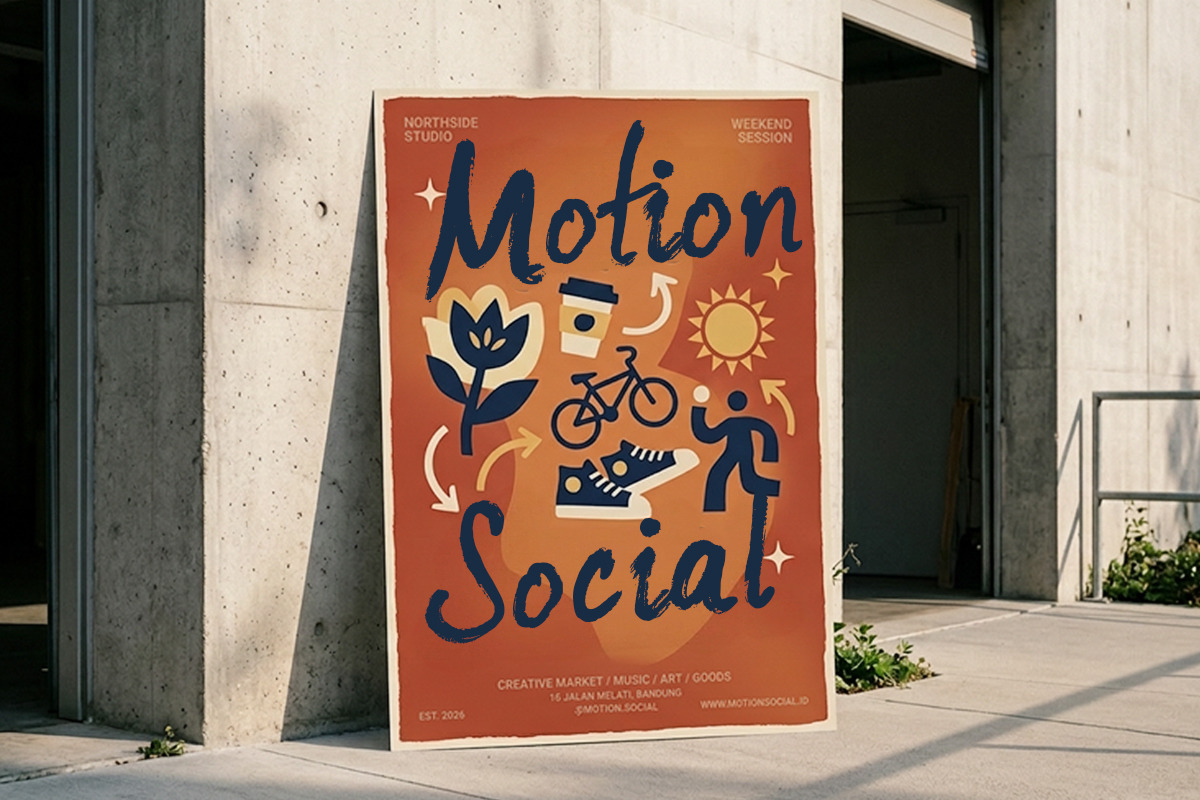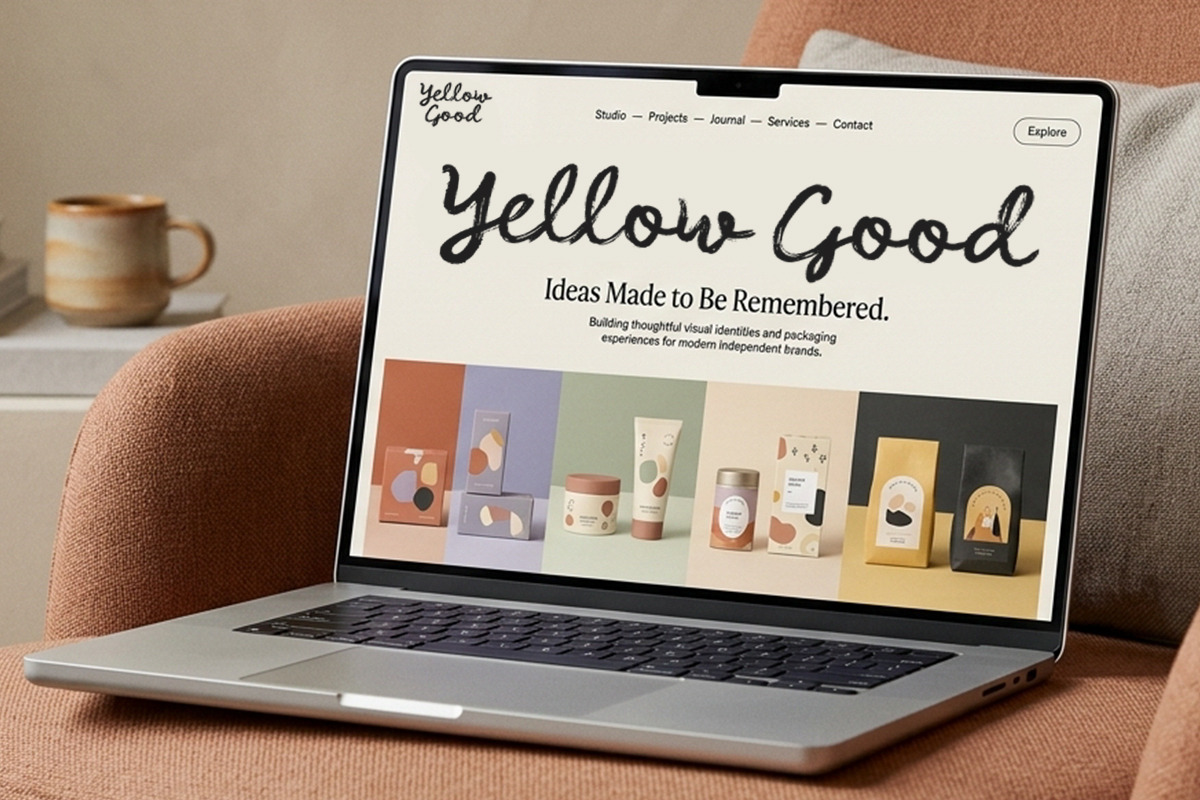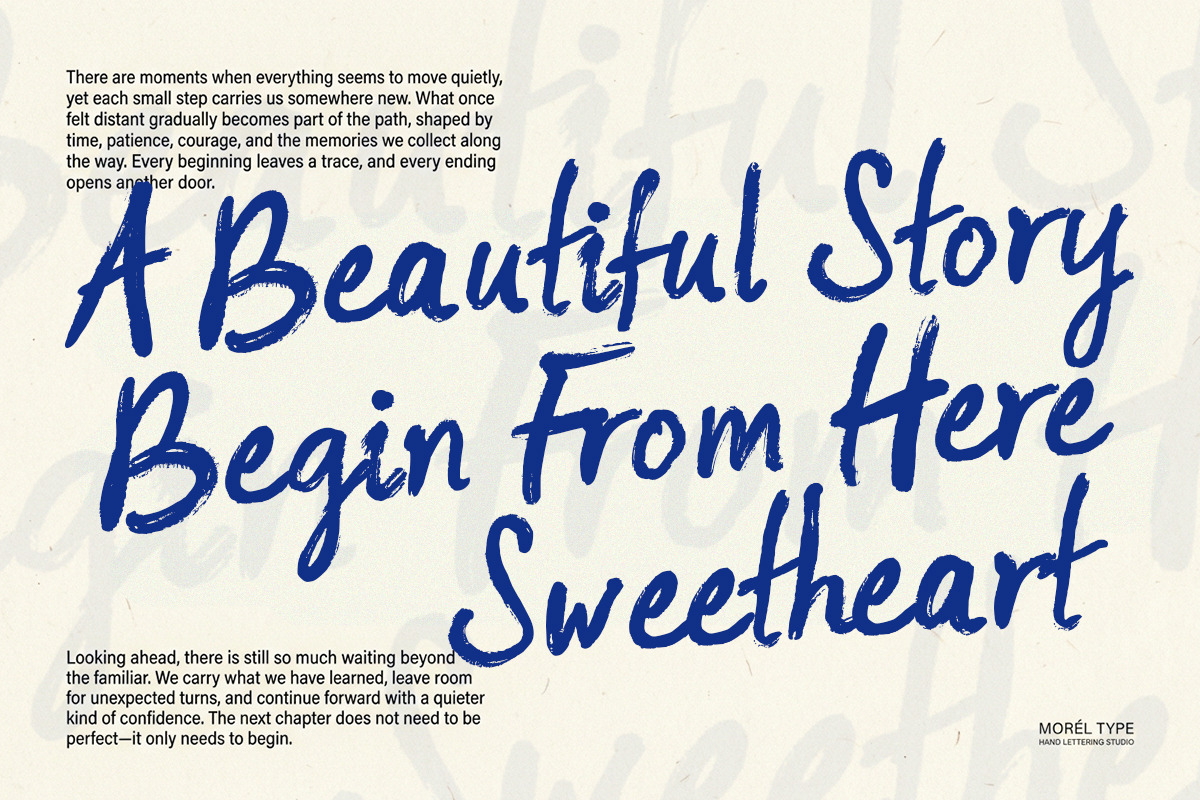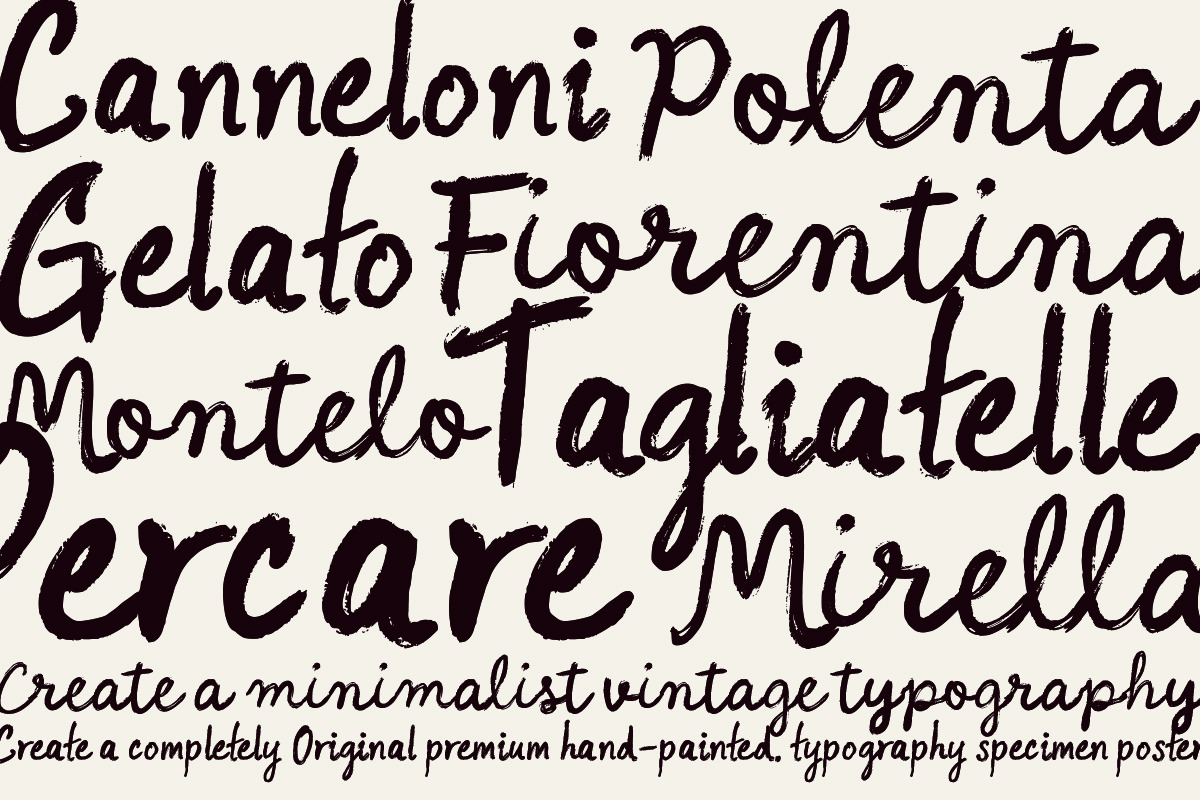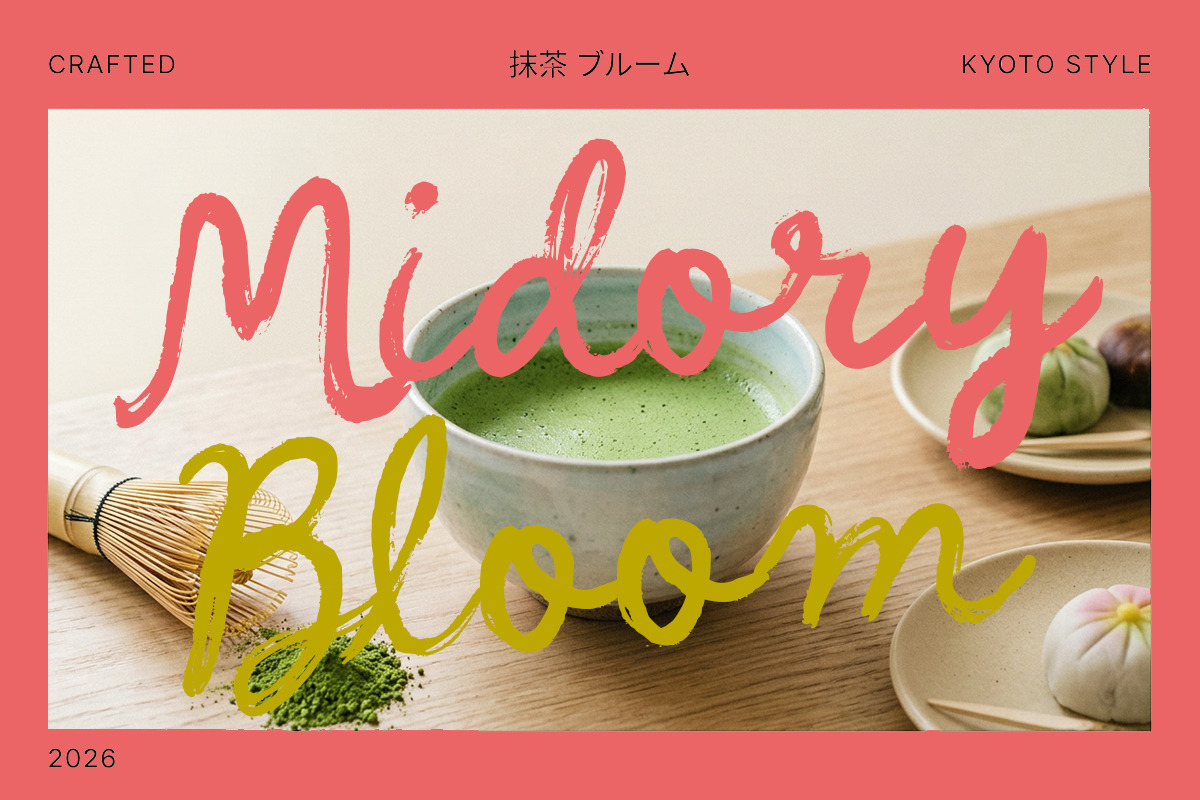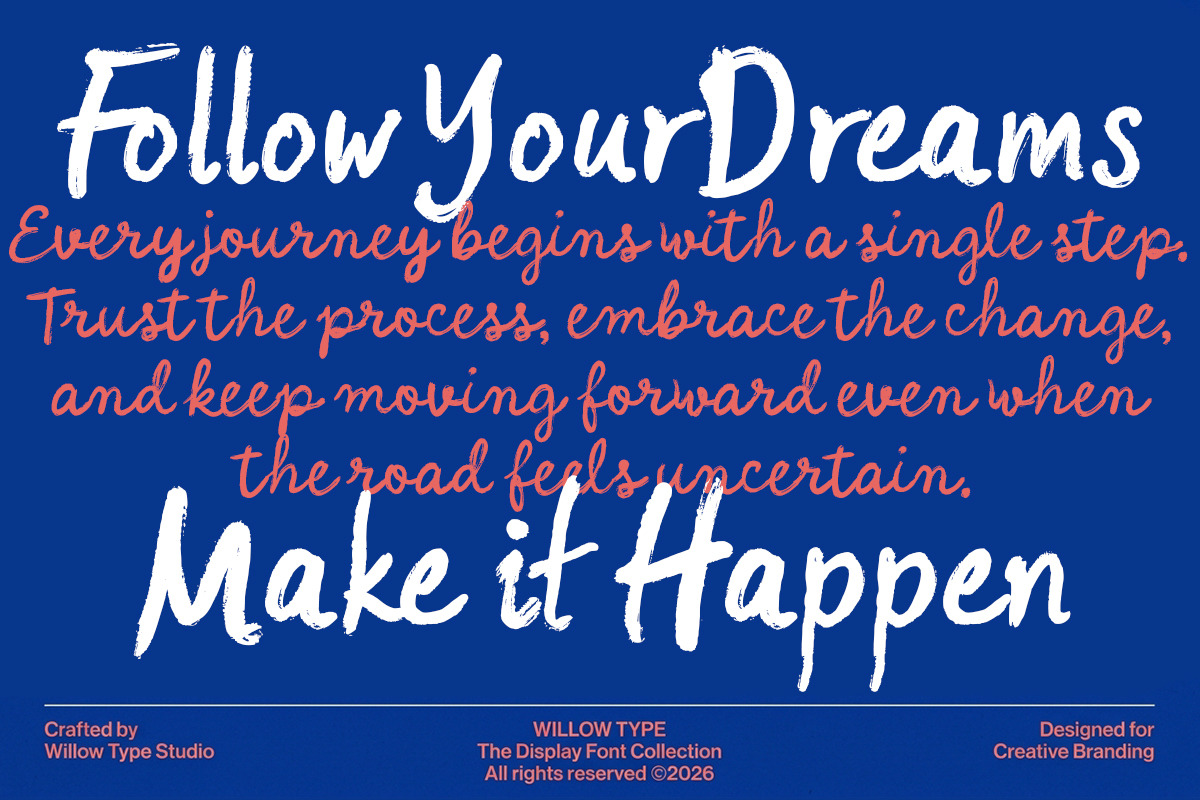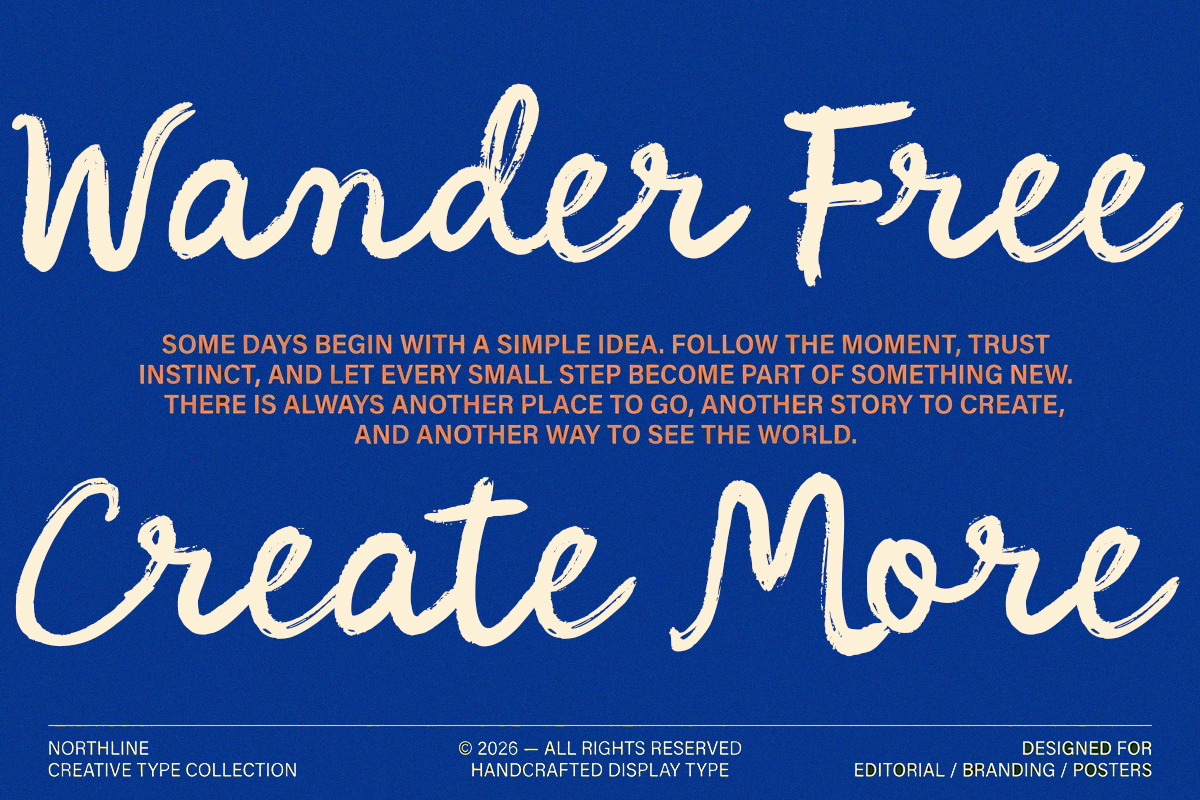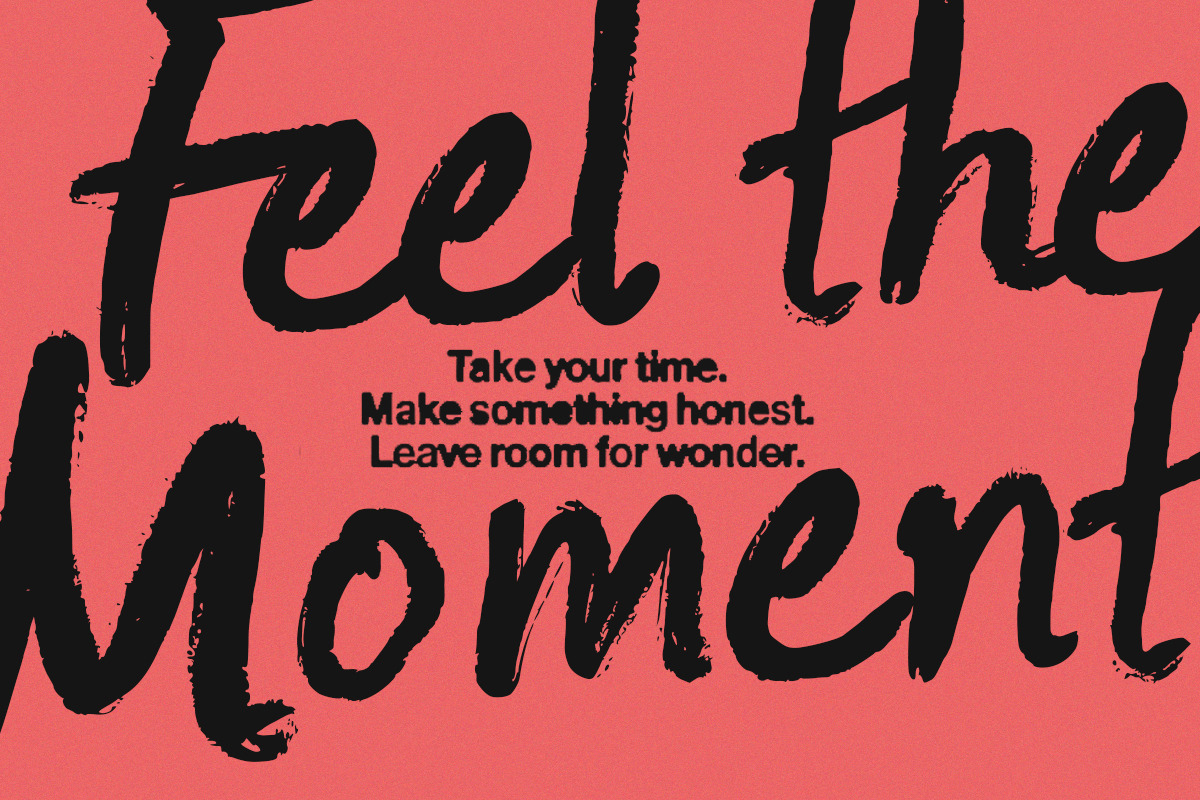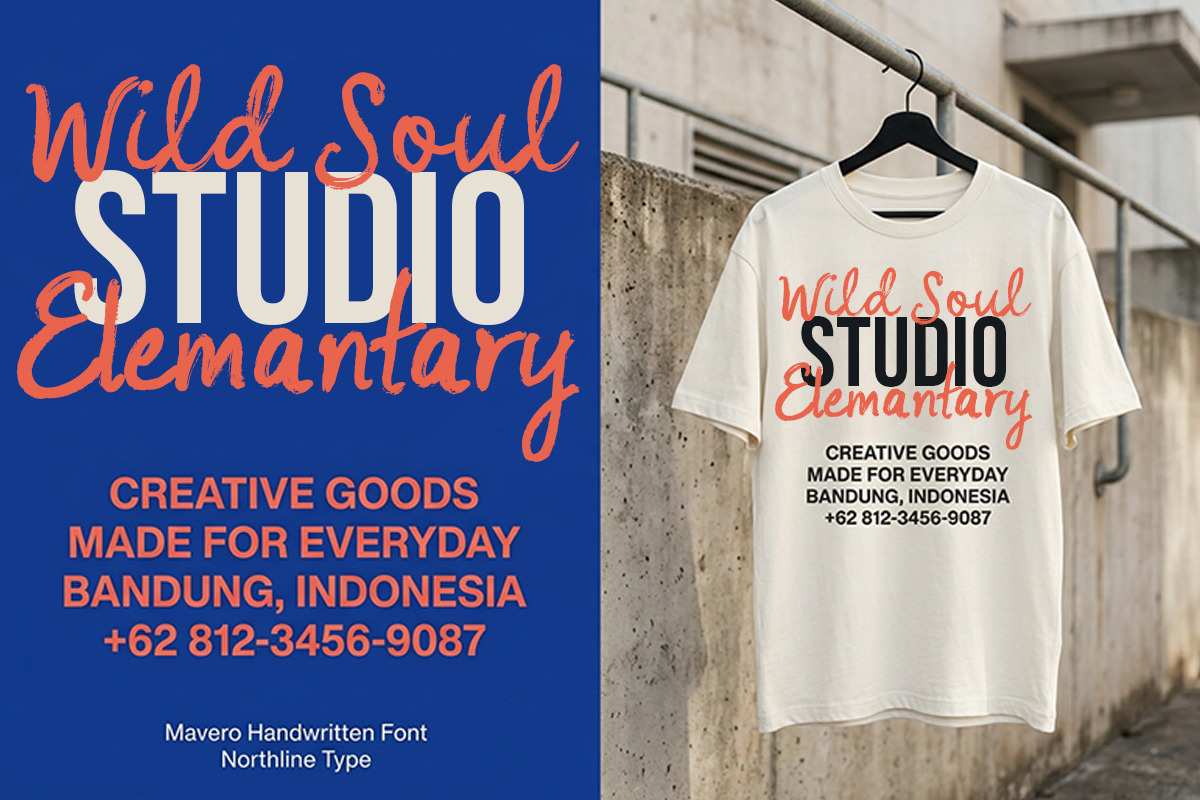
Hampers For Boys
Hampers for Boys is a playful, brushed handwritten typeface designed to bring a casual, energetic, and expressive touch to your creative work. Featuring authentic dry-brush textures and smooth, natural flow, this font adds a personal and handcrafted feel to any design project.
Whether you're crafting vibrant packaging or eye-catching headers, Hampers for Boys delivers a relaxed yet striking aesthetic made for slow days and bright nights.
Authentic Brush Texture: Hand-drawn stroke details with organic rough edges.
Playful & Versatile: Perfectly balances casual handwriting with excellent readability.
Dynamic Script Style: Flowing letterforms that create a lively, personal touch.
Ideal For:
Product Packaging & Gift Hampers
Branding, Logos, & Label Designs
Apparel, T-Shirts, & Merchandise
Social Media Graphics & Posters
Greeting Cards & Event Invitations
Bring a warm, creative, and youthful spirit to your designs with Hampers for Boys!